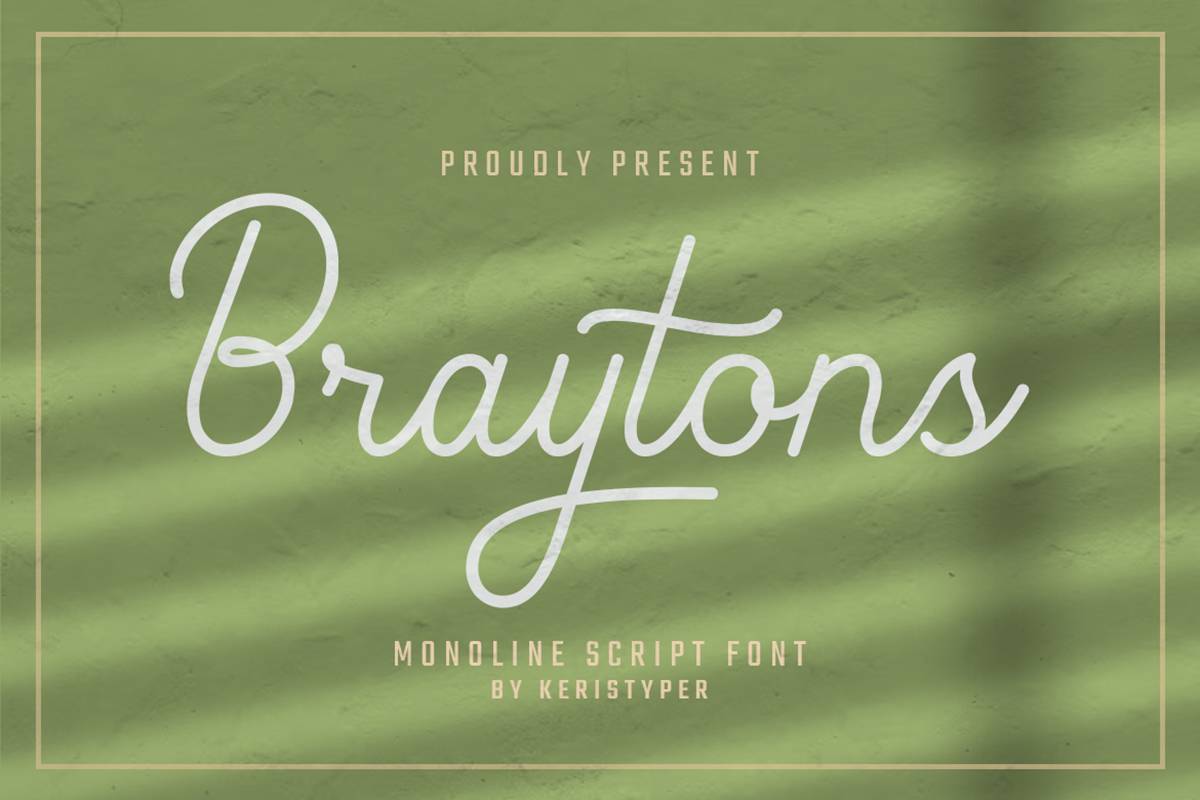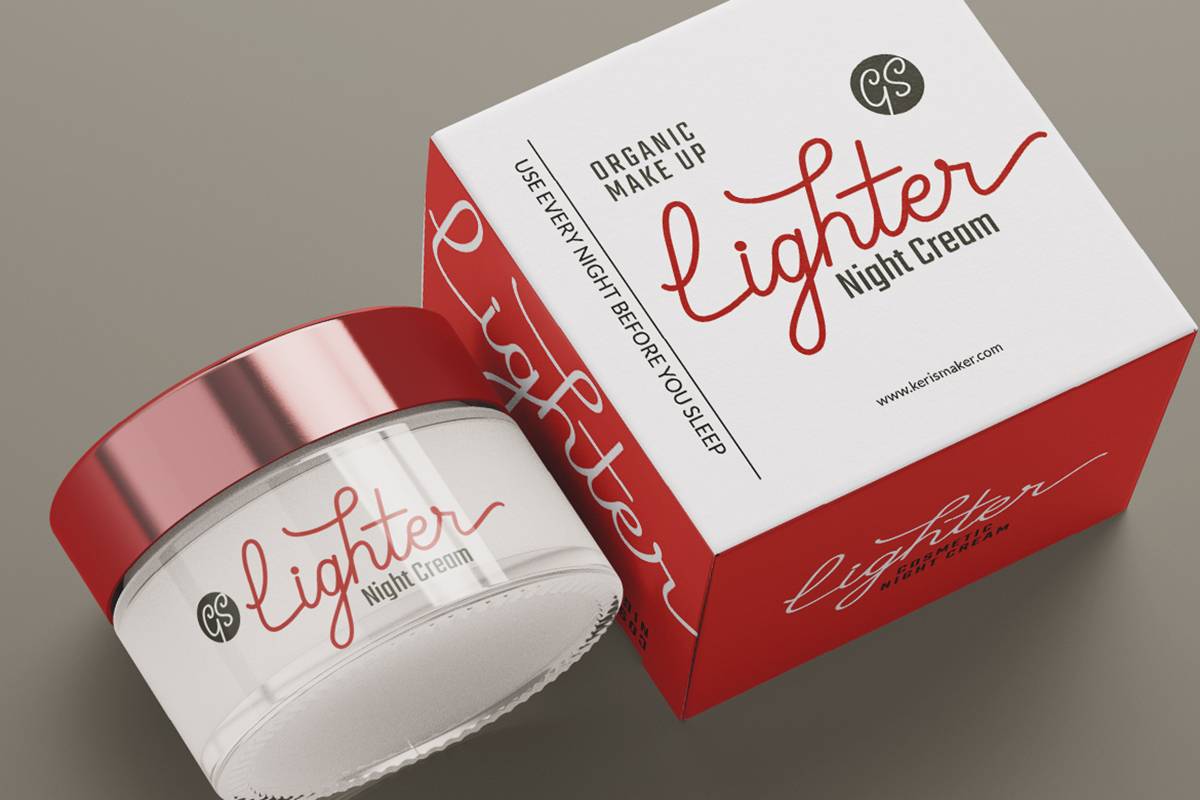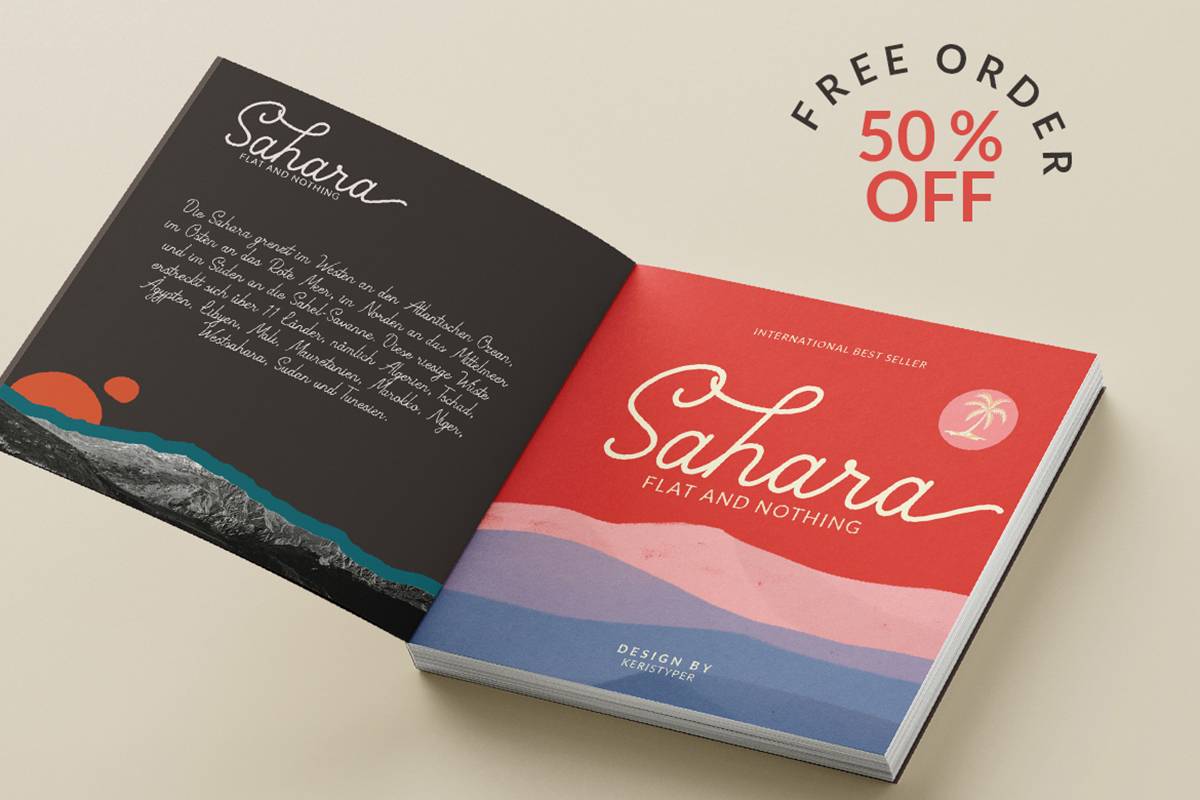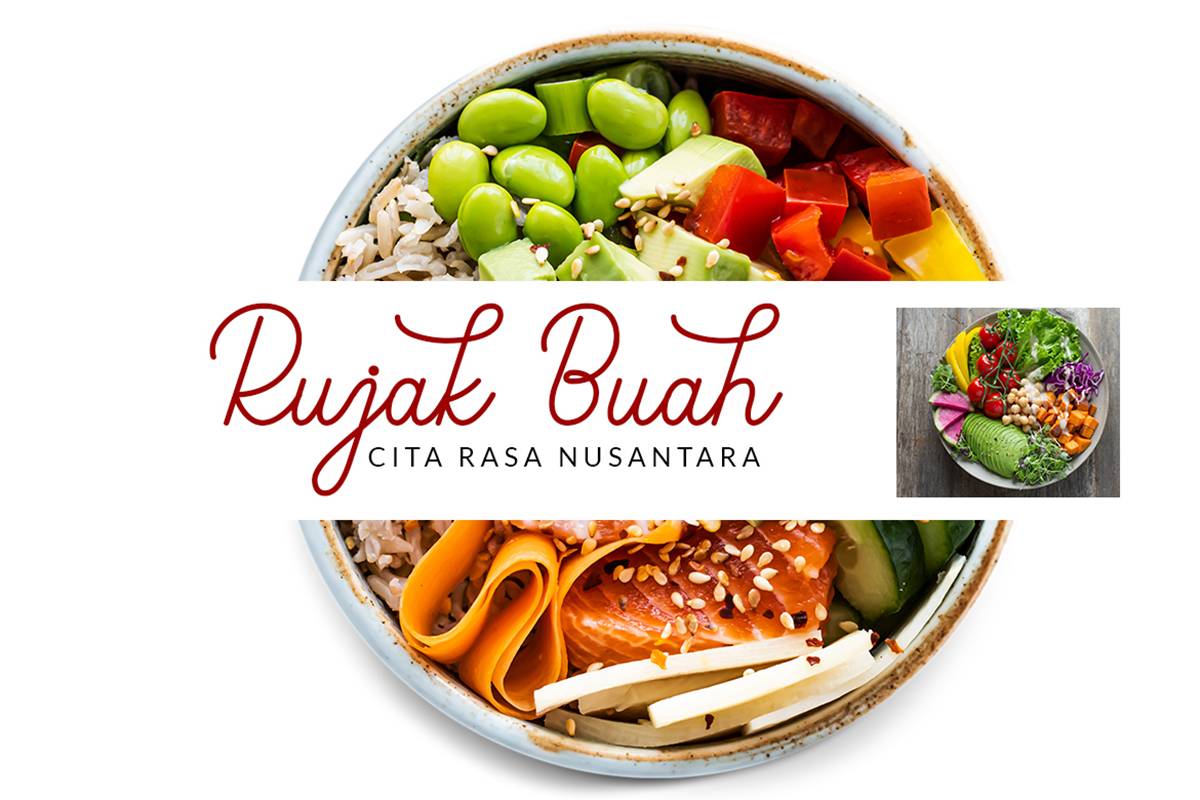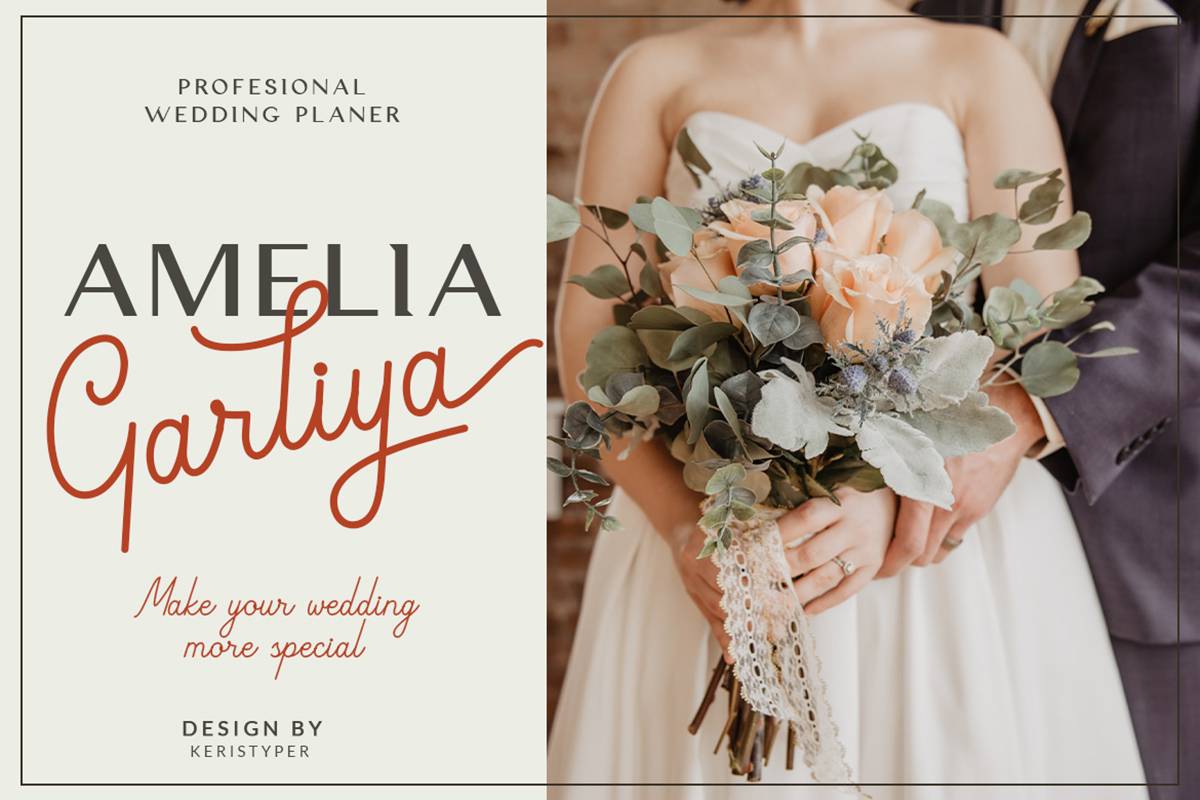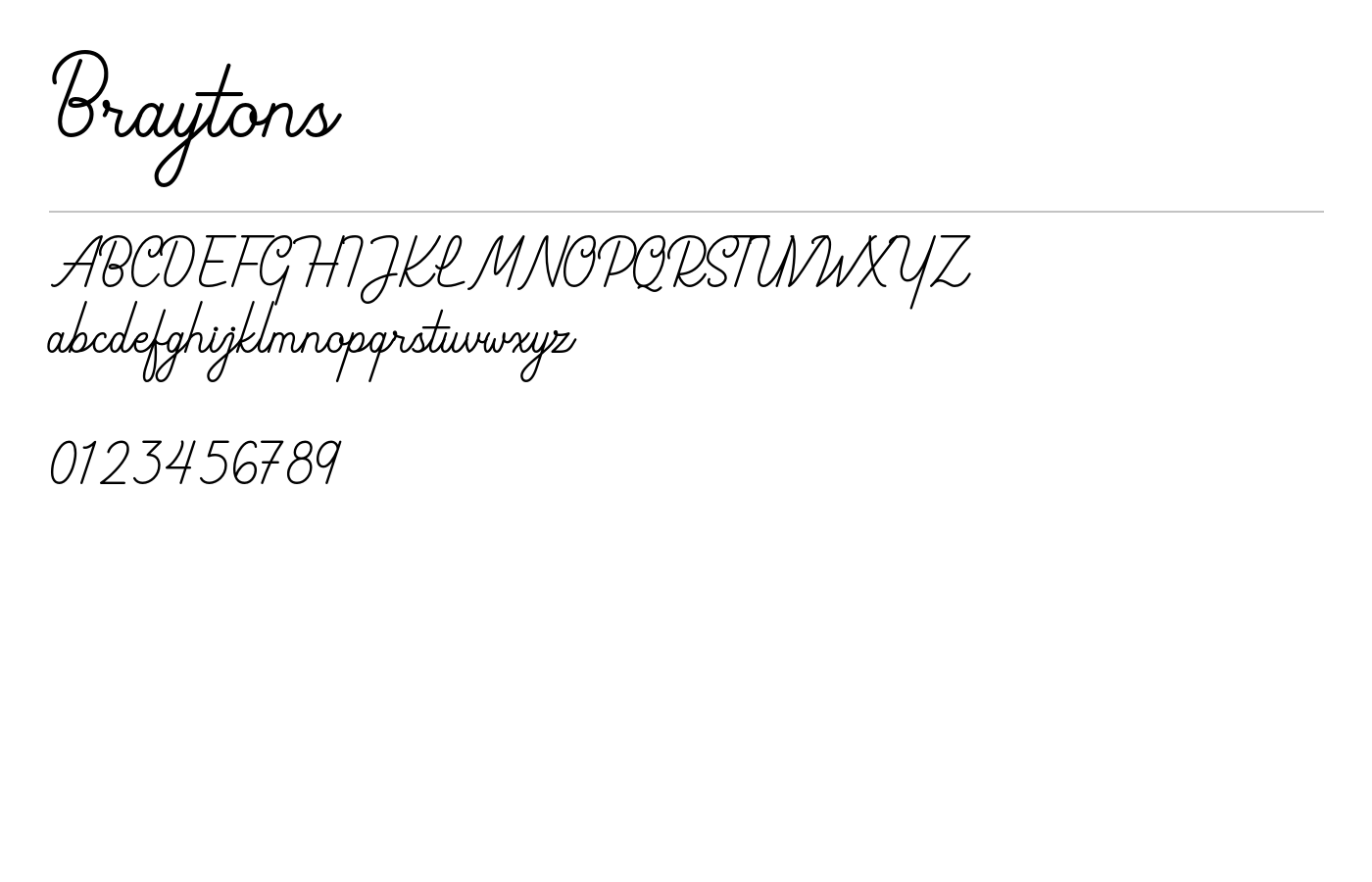
Braytons is a delicate script font with a light weight and elegant, flowing letterforms that emphasize a handwritten, personal feel. Its slender, slightly tall characters with smooth curves and narrow spacing make it ideal for sophisticated invitations, feminine branding, and stylish headlines, bringing a touch of graceful charm to any design.
Braytons Font
About Braytons Font
| Font family | Braytons Font |
| Release date | 2021-09-08 |
| Designer | Tezar Tantular |